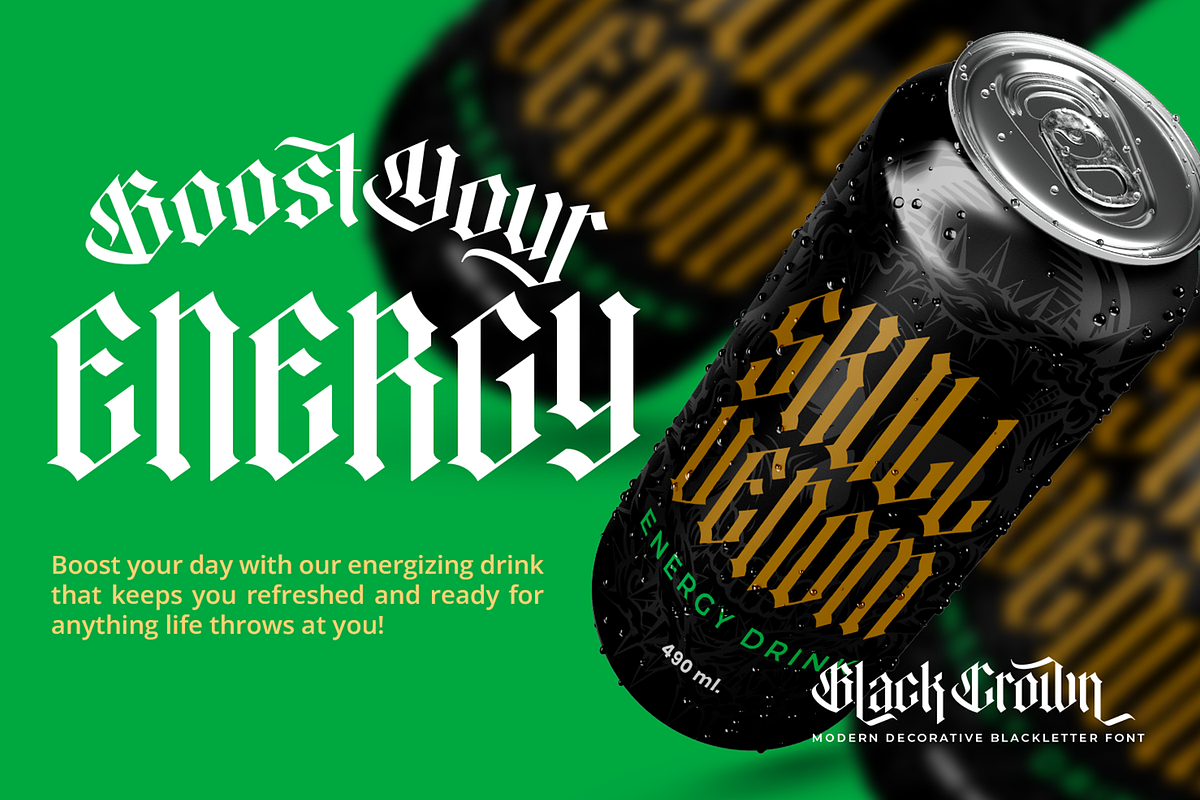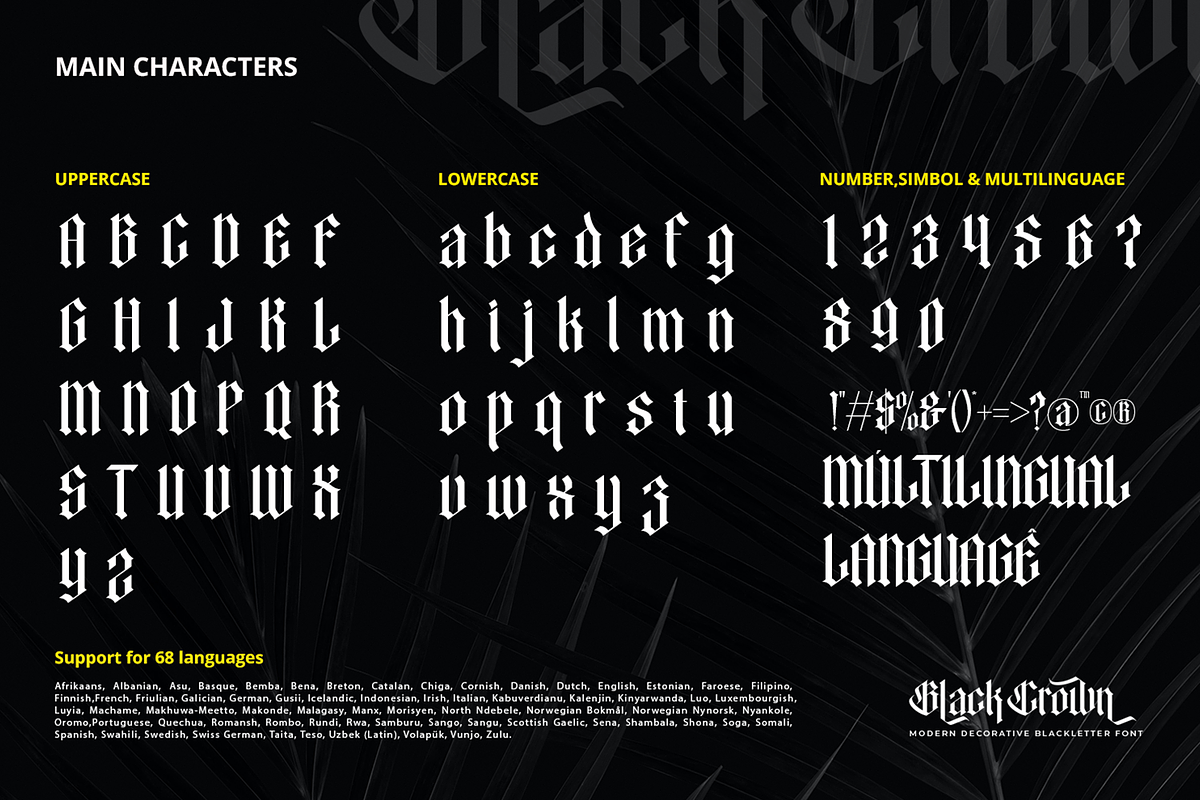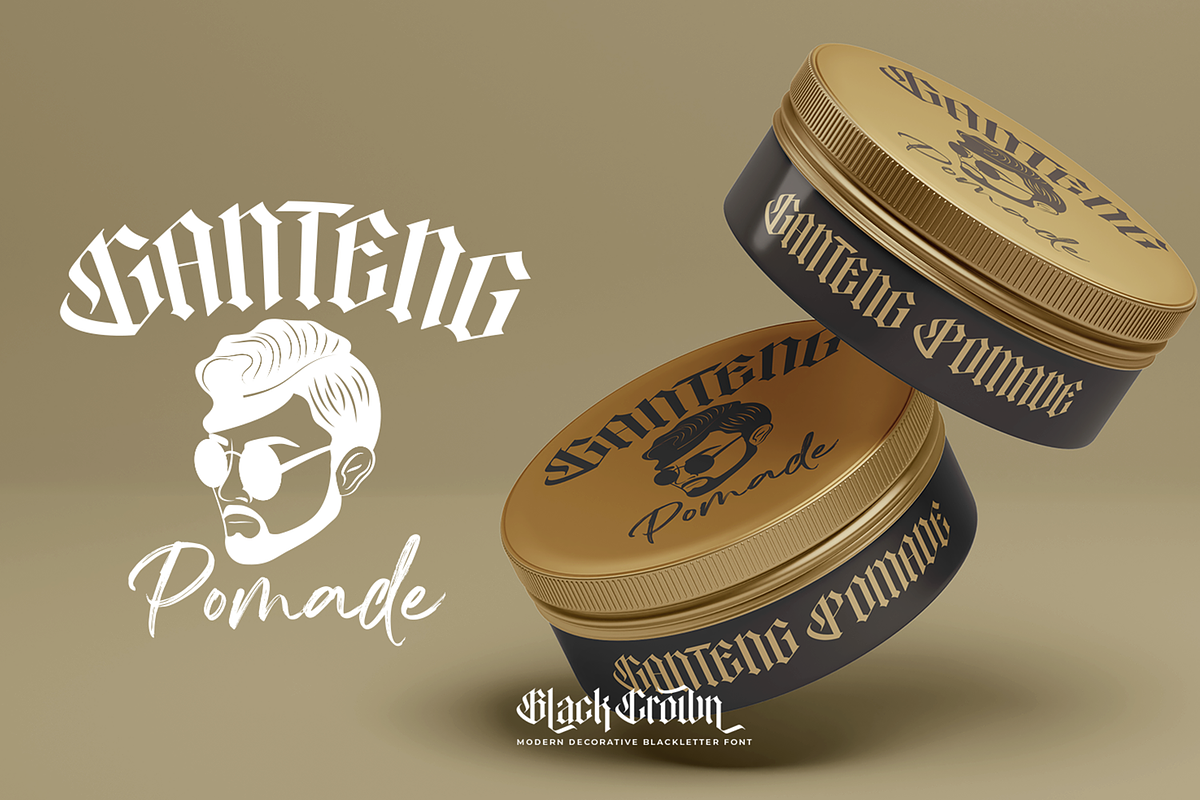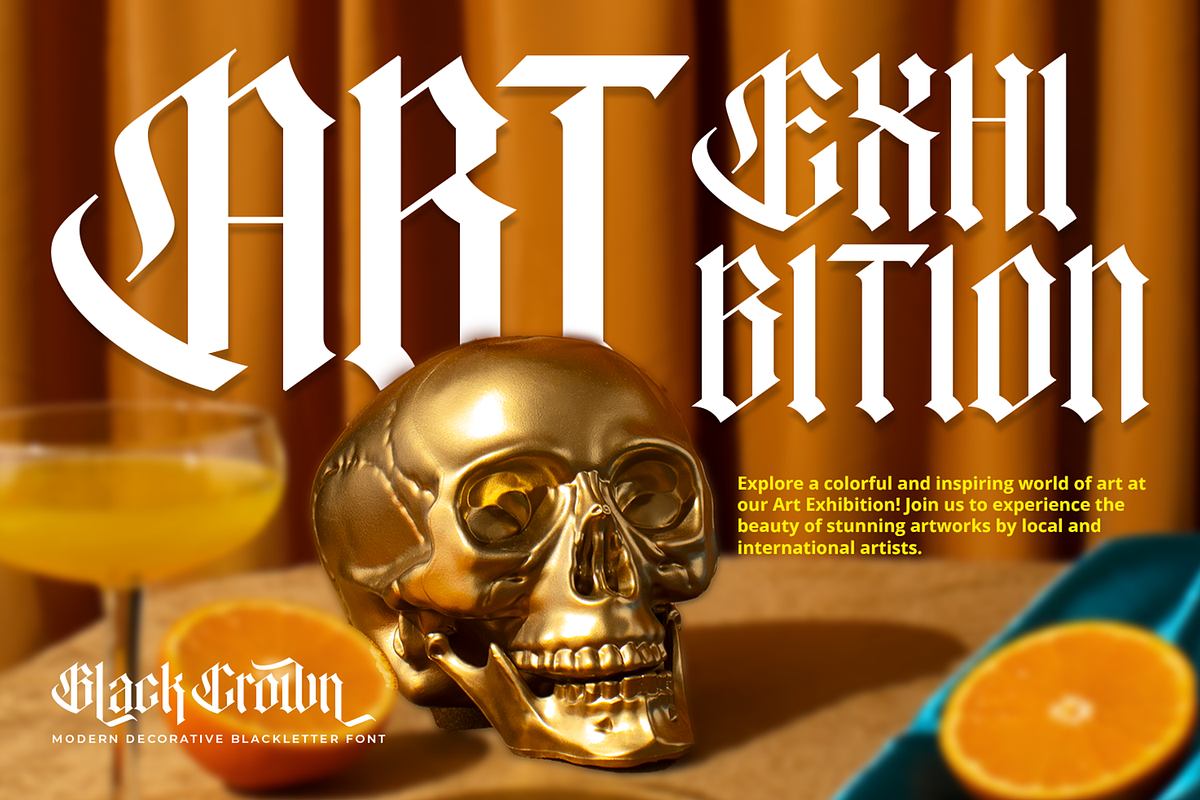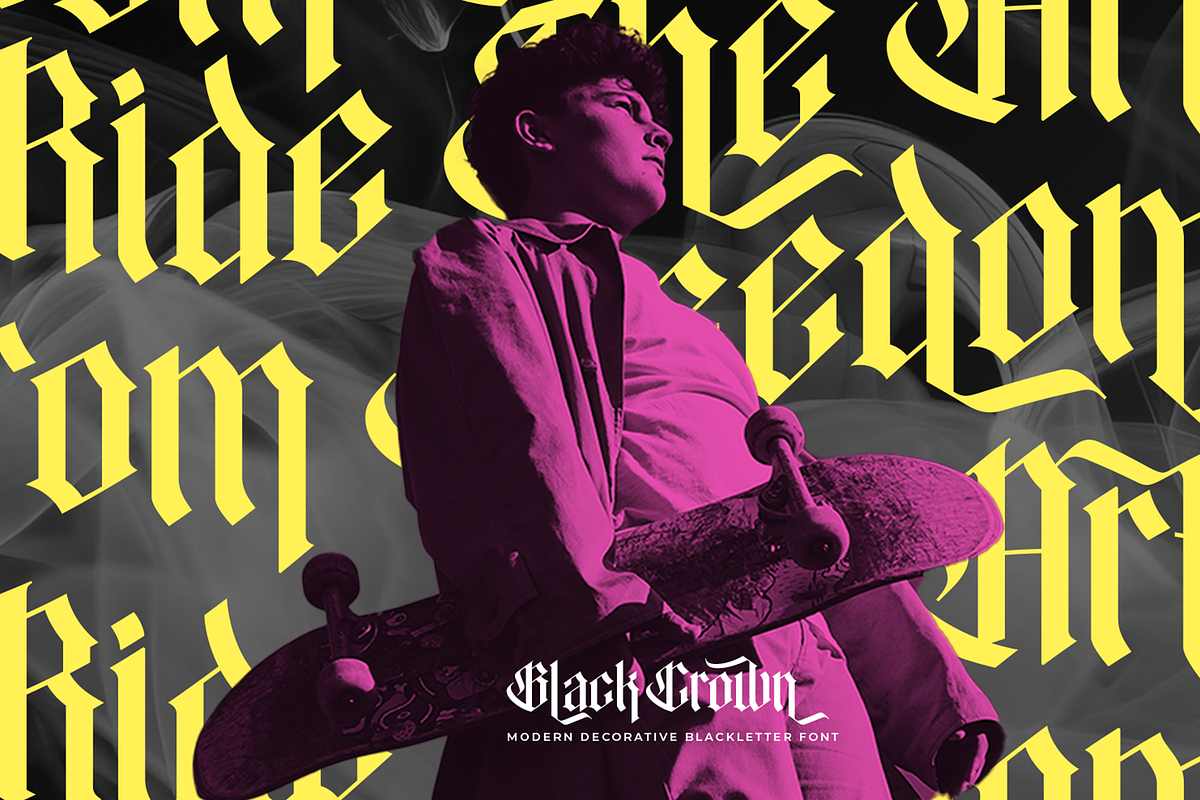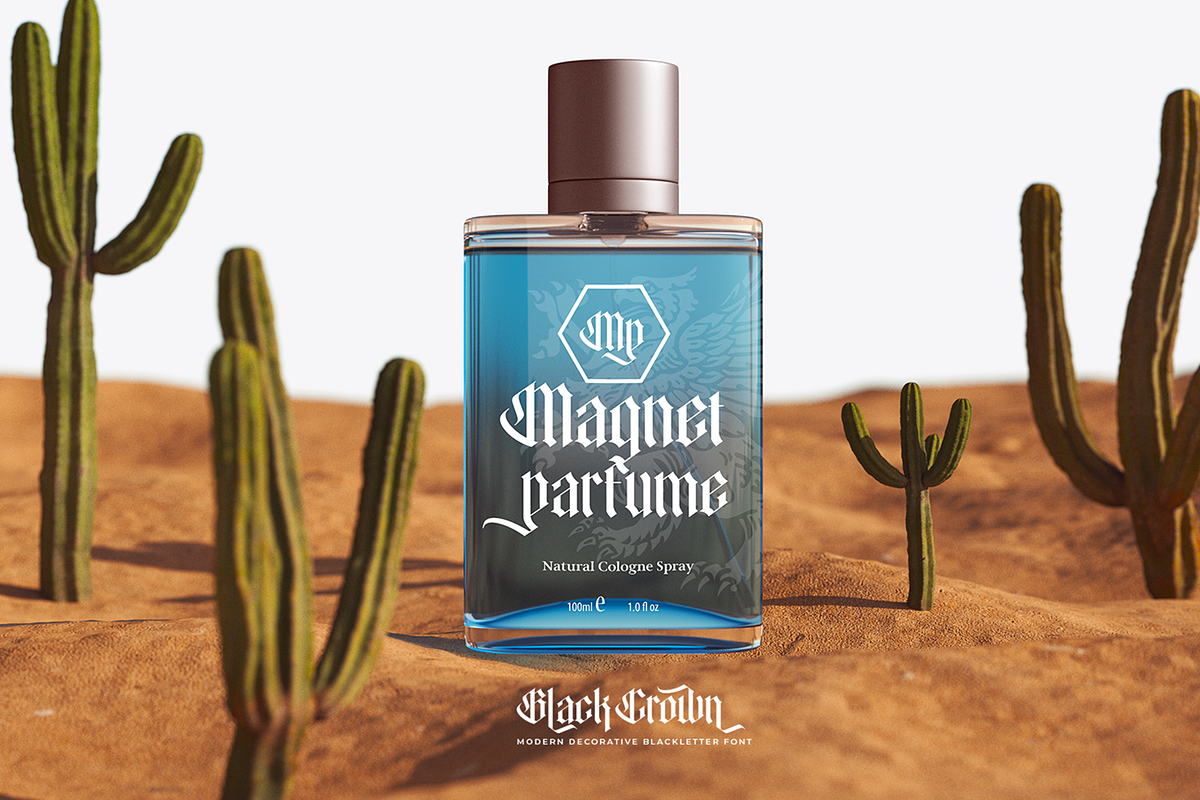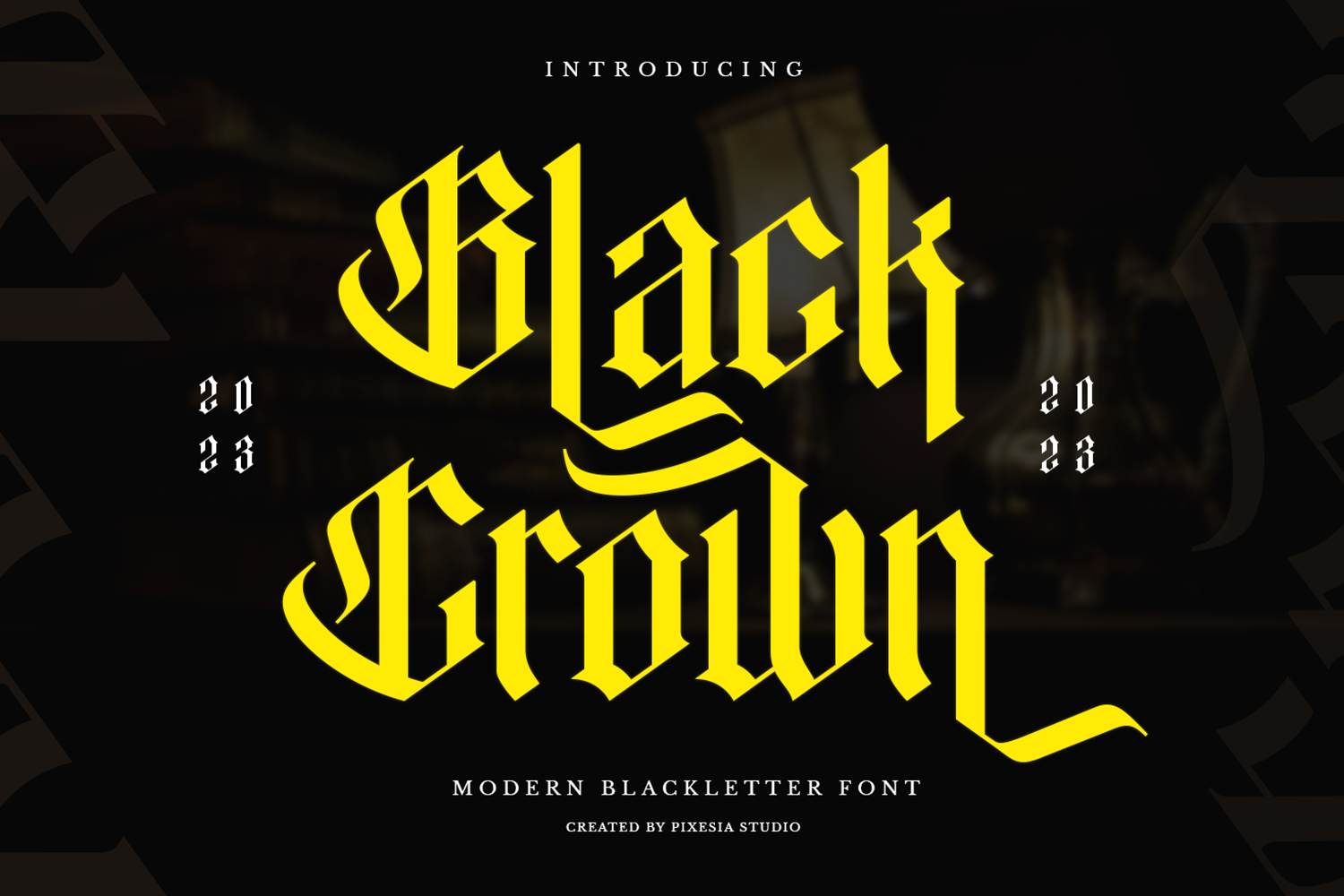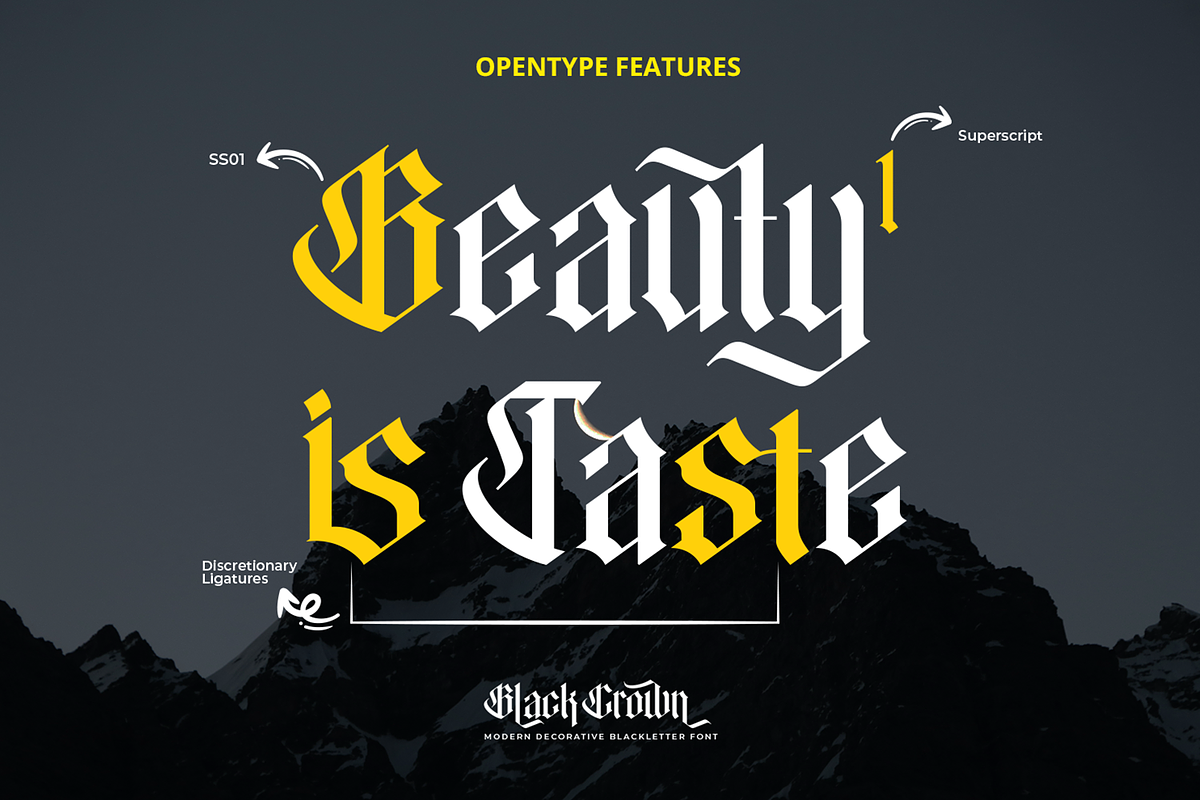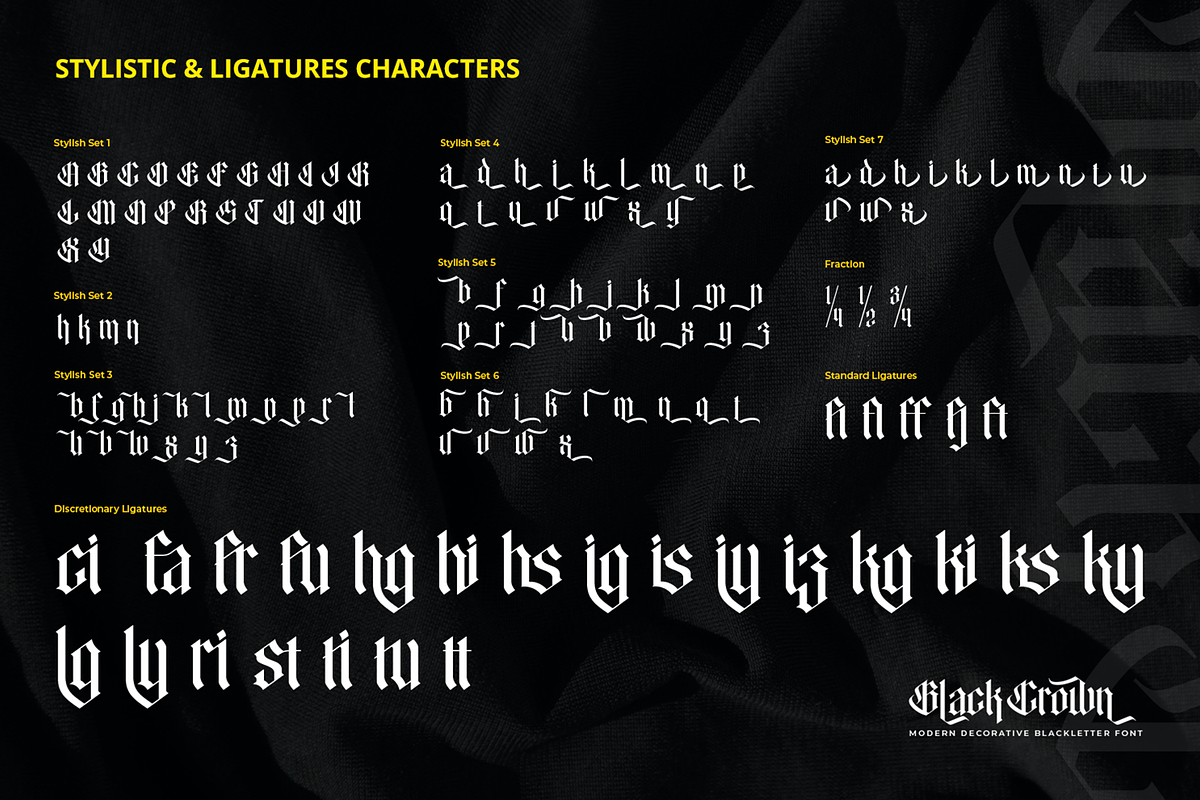
Black Crown Modern Blackletter Font
Introducing Black Crown - Modern Blackletter Font
Black Crown is a modern blackletter font inspired by royal-classic aesthetic which inspired by modern and sophisticated touch. It provides the no-end possibilities and alternatives to craft a design with bold yet elegant style.
Black Crown perfectly suits any vogue or luxurious occasion. Black Crown is better used for product packaging, label, t-shirt, or any projects seeking for a touch of elegant modern blackletter.
- Multilingual Support for 68 languages including Afrikaans, Albanian, Basque, Catalan, Danish, Dutch, English, Estonian, Faroese, Filipino, Finnish, French, Galician, German, Icelandic, Indonesian, Irish, Italian, Malay, Norwegian Bokmål, Portuguese, Spanish, Swahili, Swedish, and Zulu